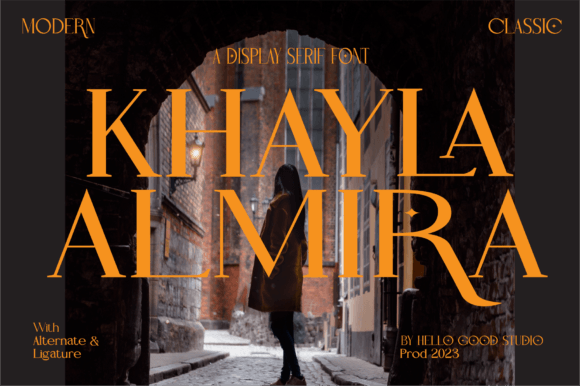
Adorn your digital creations with the elegance and grace of Khayla Almira, a serif font family that exudes sophistication and charm. This exquisite font collection, meticulously crafted by studiohellogood, offers a captivating blend of classic aesthetics and contemporary appeal. Unleash your creativity with six distinct font styles, ranging from the timeless Regular to the dramatically Bold, each complemented by their Italic counterparts.
Khayla Almira's delicate serifs and flowing curves lend an air of sophistication to your designs, whether you're crafting logos, headlines, or captivating display text. Its versatility shines in both print and digital media, making it an indispensable tool for designers, bloggers, and content creators alike.
Enrich your designs with the intricate ligatures and alternate letters that Khayla Almira offers, adding a touch of individuality and flair to your projects. Discover the boundless possibilities of this font family as you effortlessly create elegant invitations, stunning social media posts, eye-catching posters, and captivating branding materials.
With Khayla Almira, you'll find the perfect balance between readability and visual impact. Its carefully crafted letterforms ensure effortless readability, even in small sizes, while its distinct style adds a touch of intrigue to your creations. Experience the joy of seamless design as you effortlessly navigate your projects, confident that your message will be conveyed with clarity and style.
Immerse yourself in the world of Khayla Almira and discover a font family that will elevate your designs to new heights. Make a lasting impression, capture attention, and inspire your audience with every project you create. Unleash your creativity and embrace the limitless possibilities that await you with Khayla Almira.